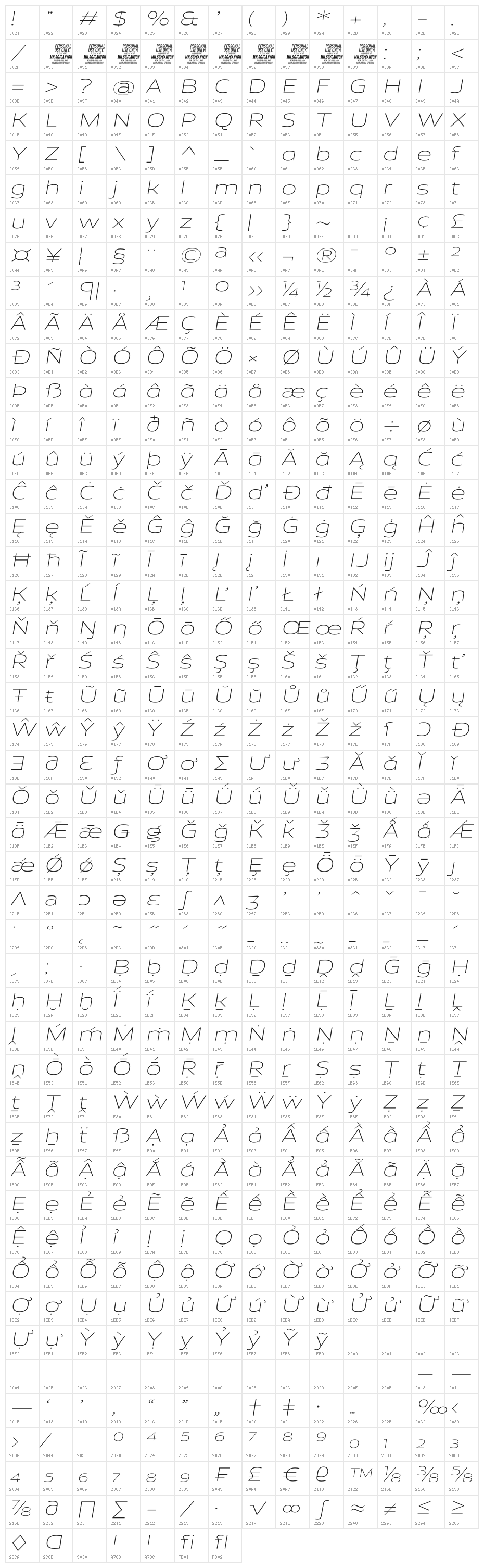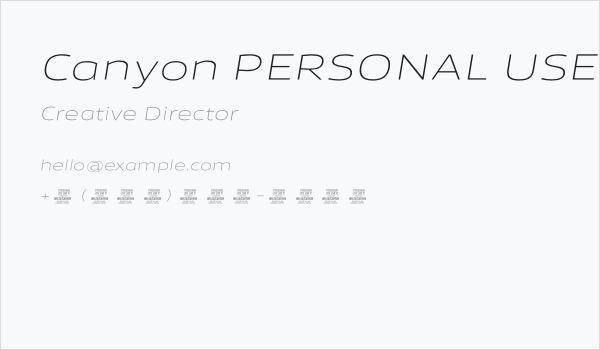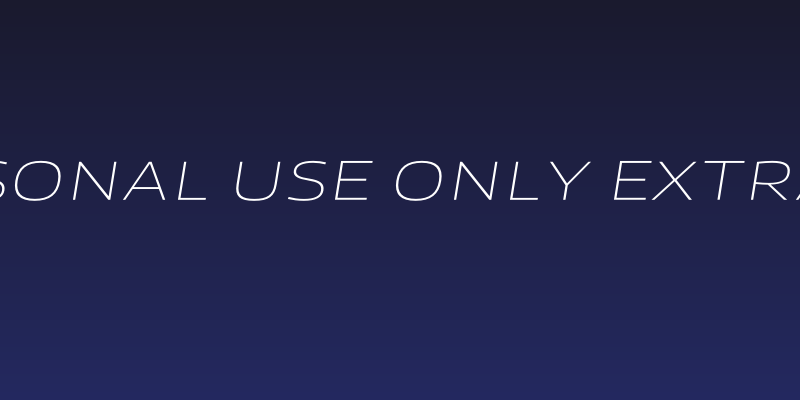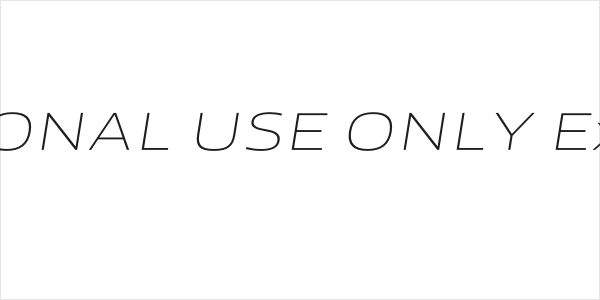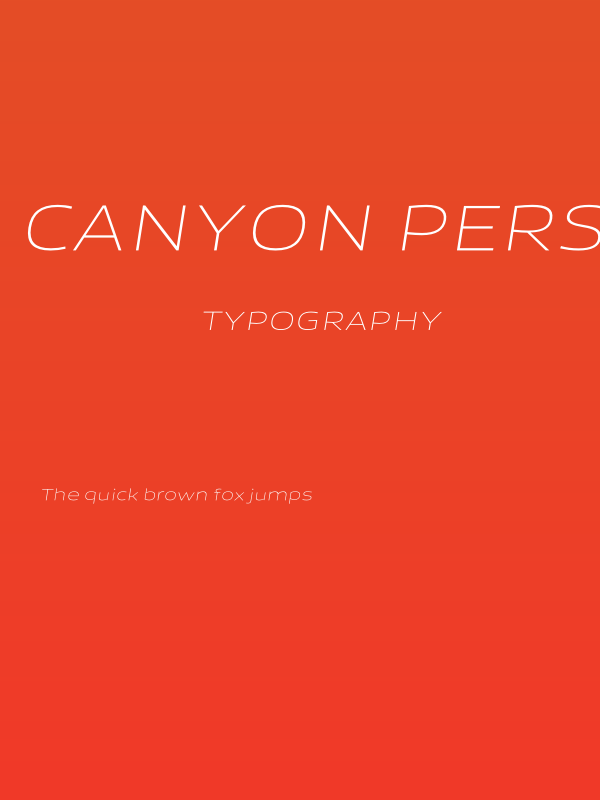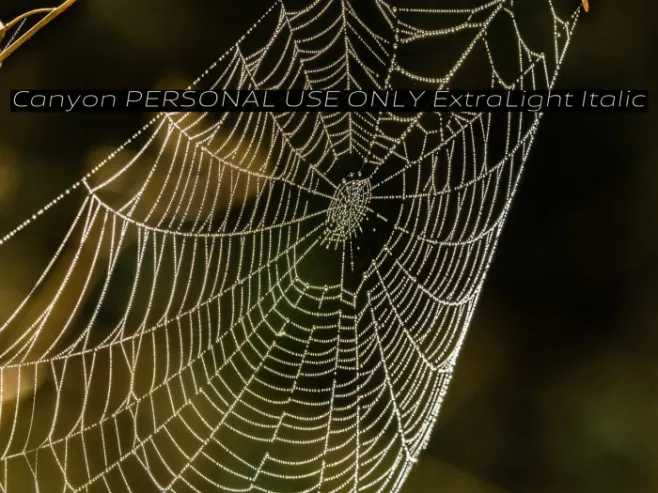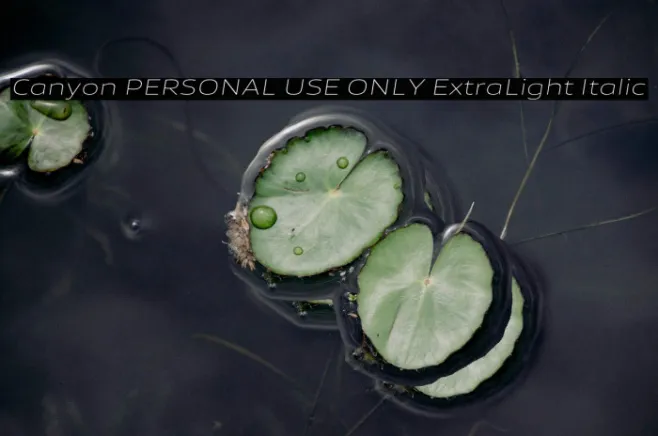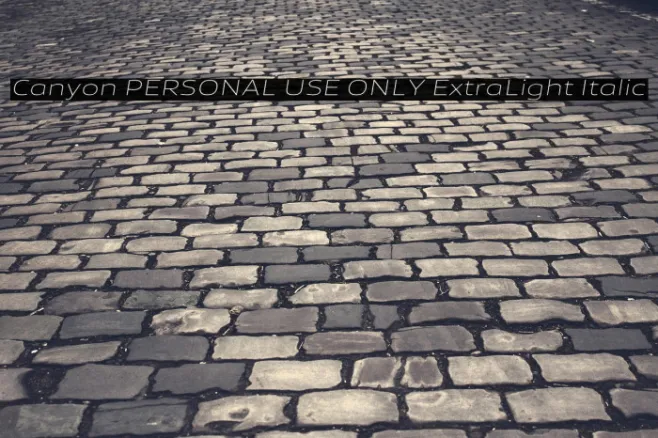
Canyon PERSONAL USE ONLY ExtraLight Italic Font
Canyon PERSONAL USE ONLY ExtraLight Italic Description
This font features a sleek and modern design with an italicized style, characterized by its extra light weight. The letters are elongated with a slight slant, giving it a sophisticated and elegant appearance. The strokes are thin and consistent, providing a clean and airy feel. The uppercase and lowercase letters maintain a uniform height, contributing to its streamlined look. The special characters are designed with the same thin strokes, ensuring cohesion across all elements. This font is ideal for projects that require a touch of elegance and modernity.
| Proposed Projects | Ideal for fashion magazines, modern branding, elegant invitations, and minimalist web design. |